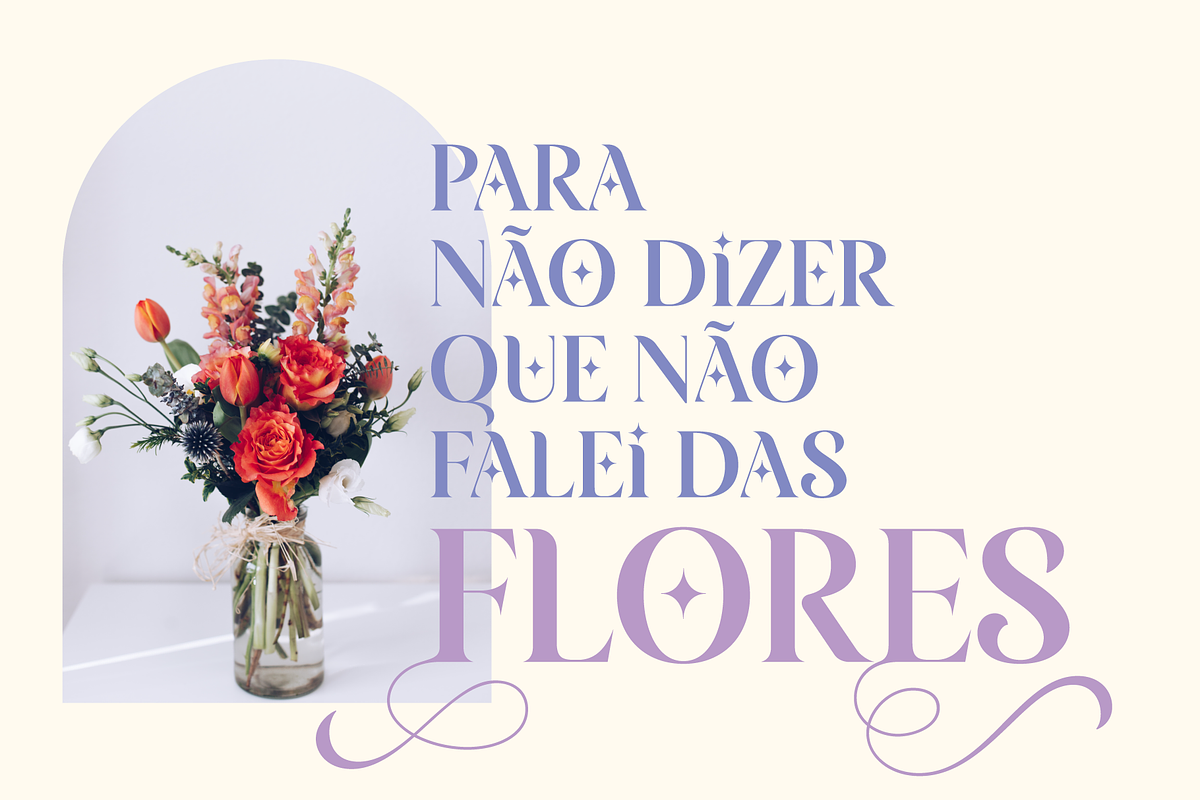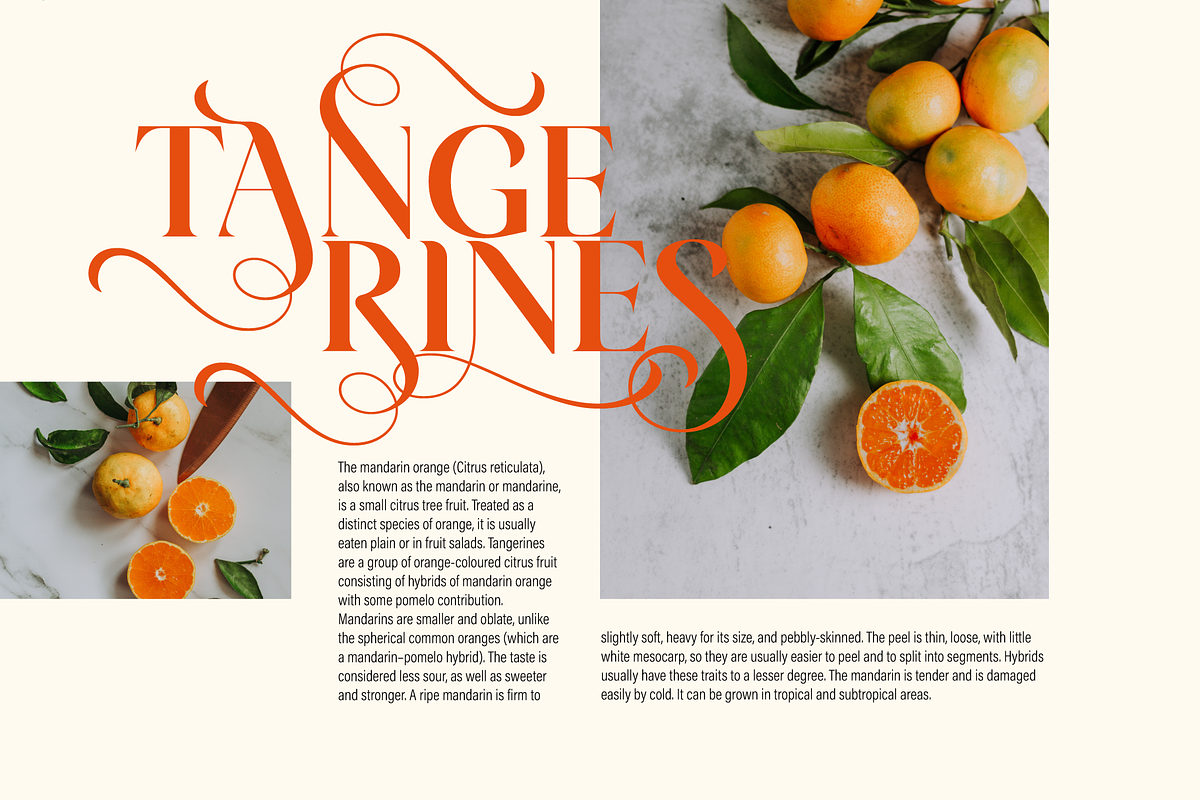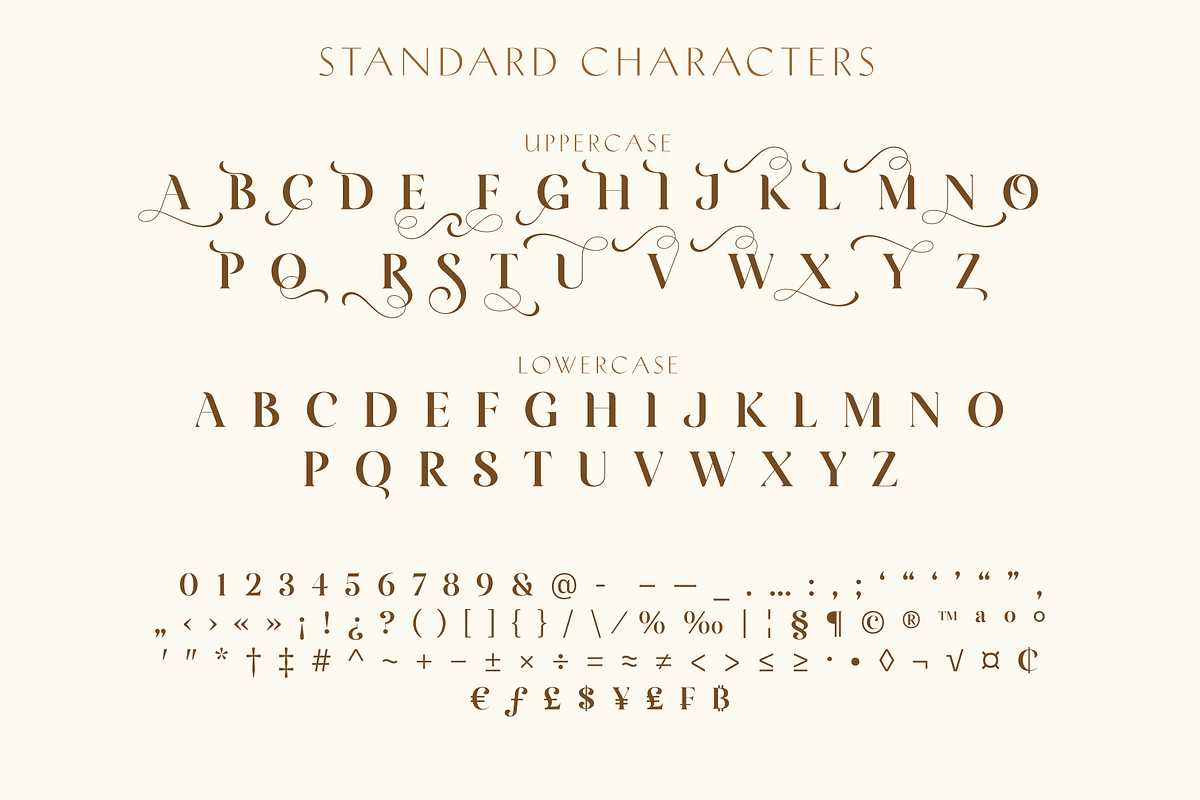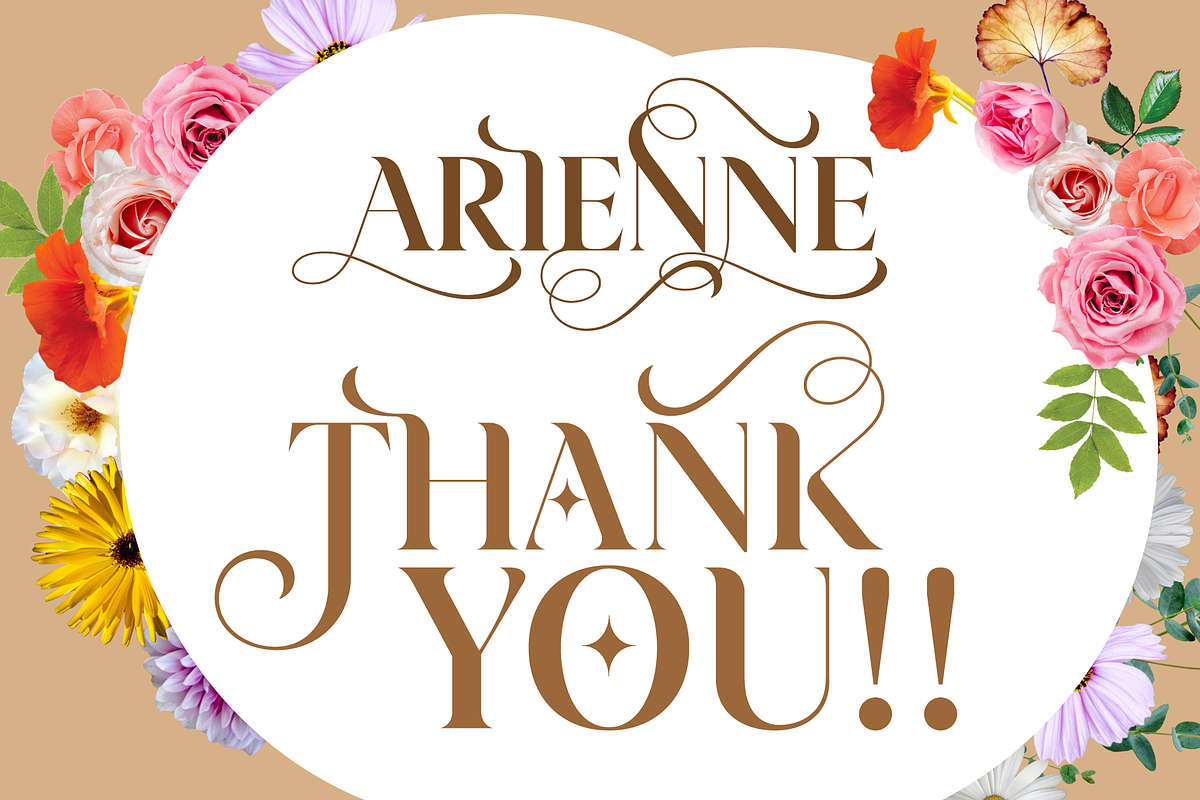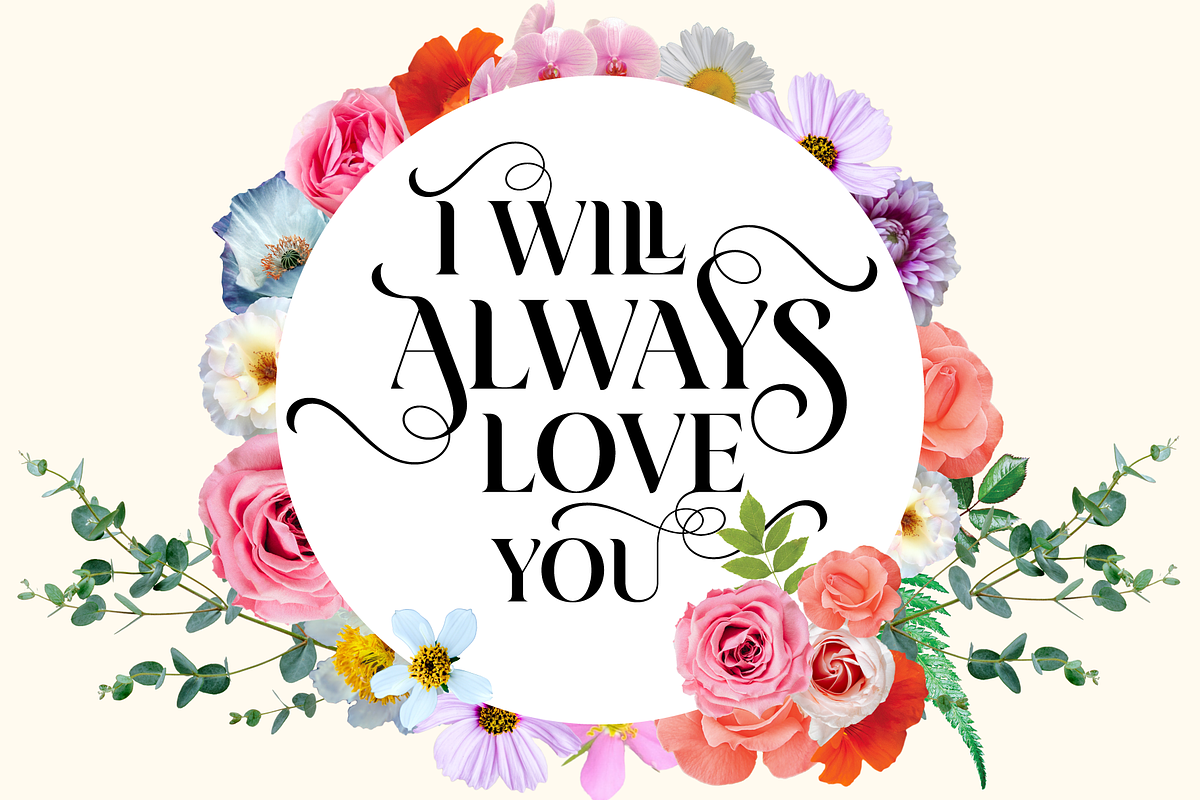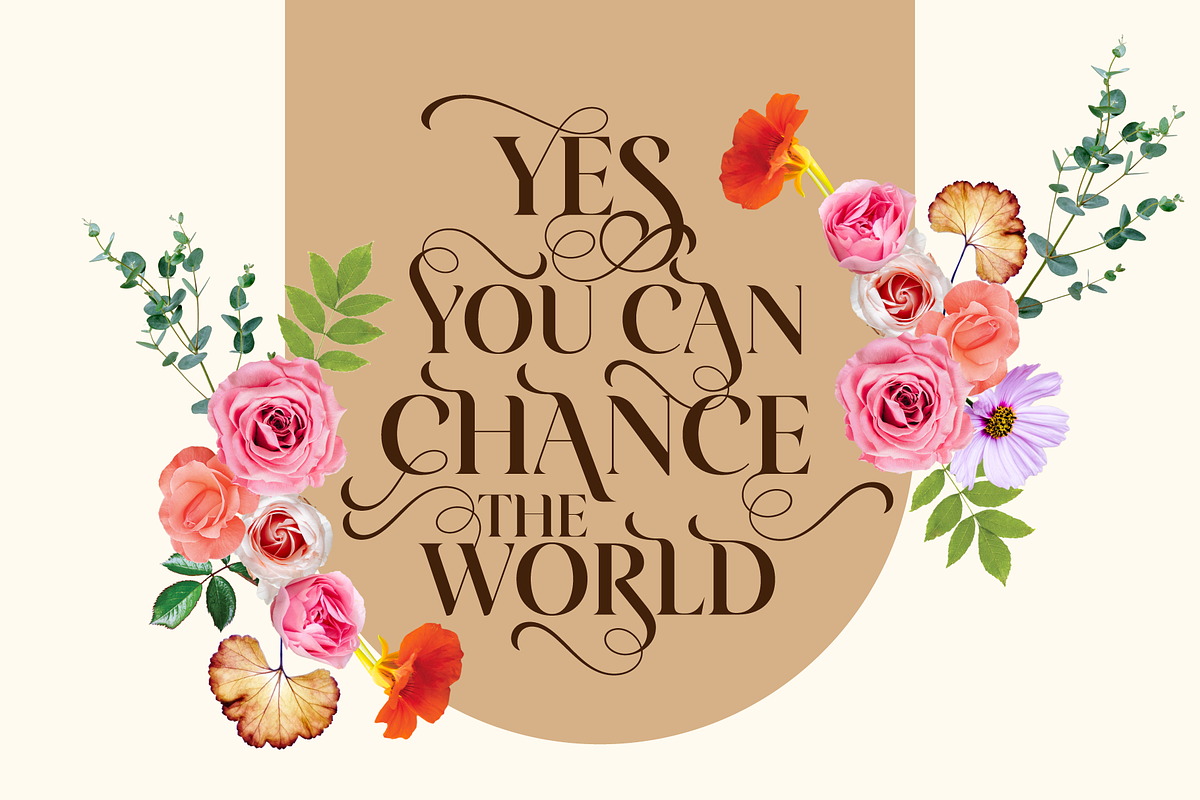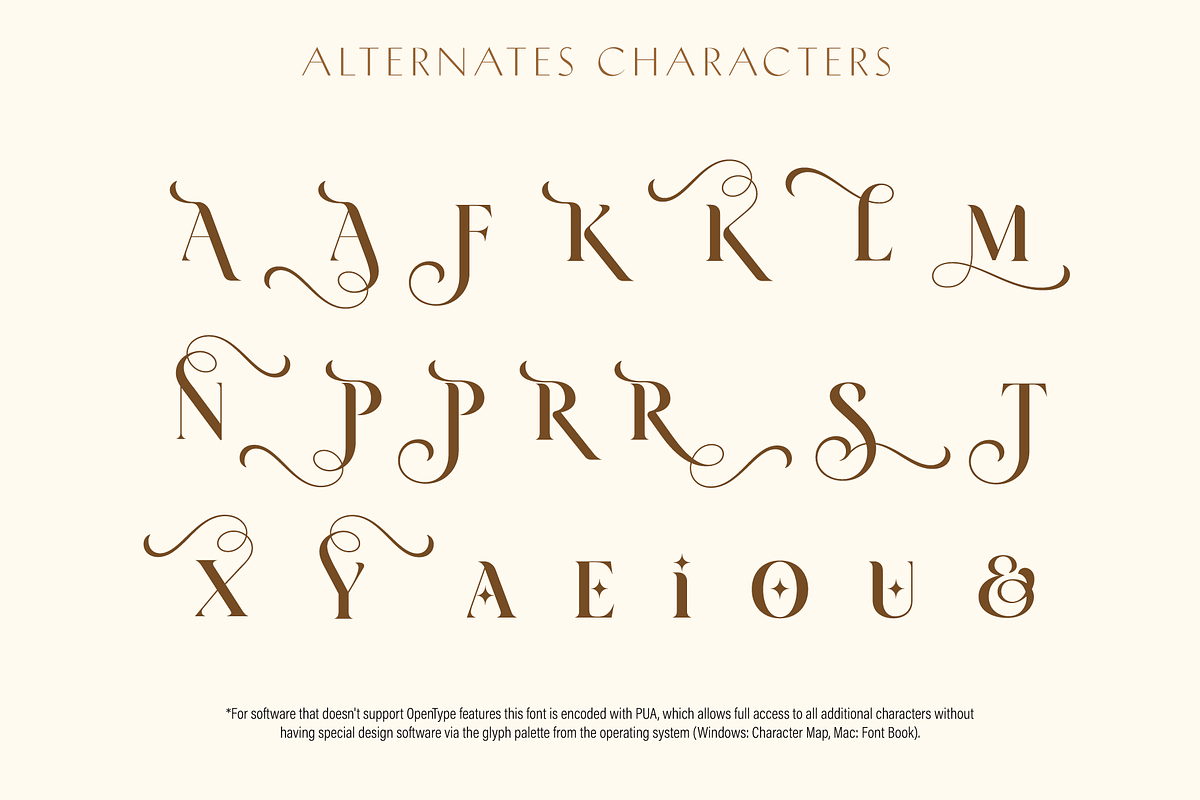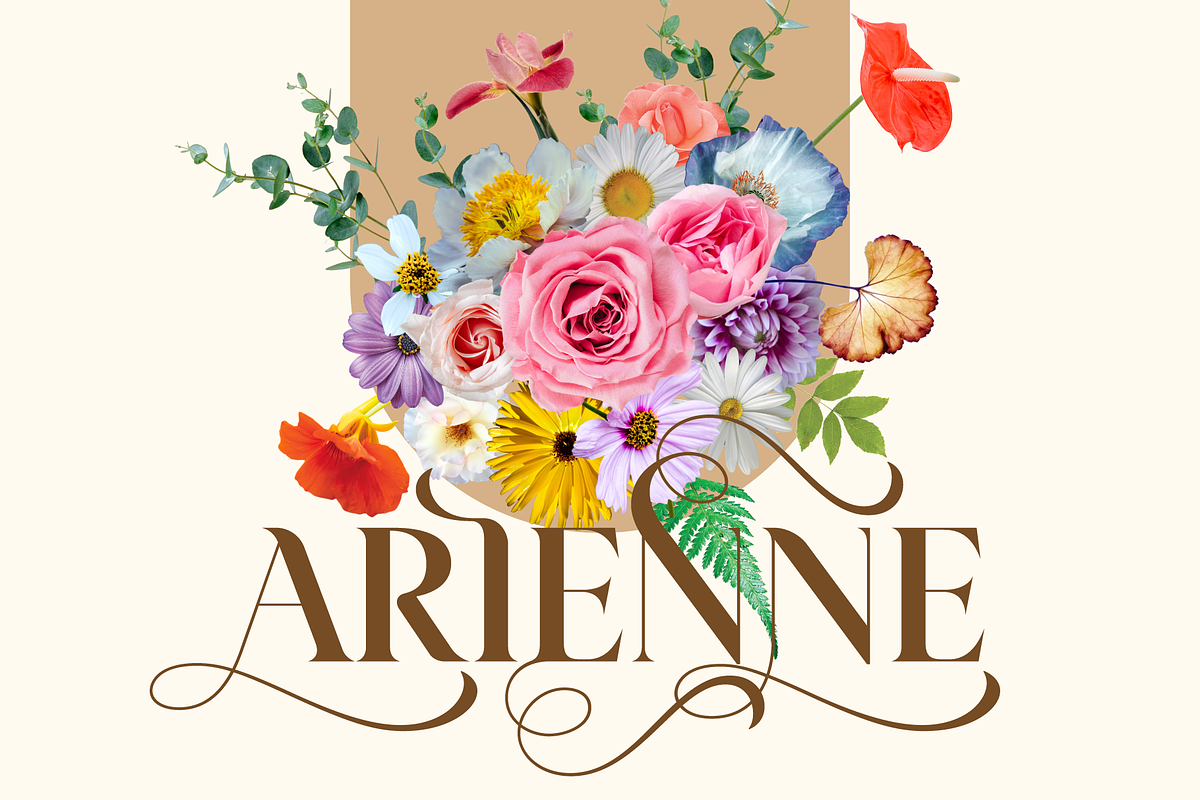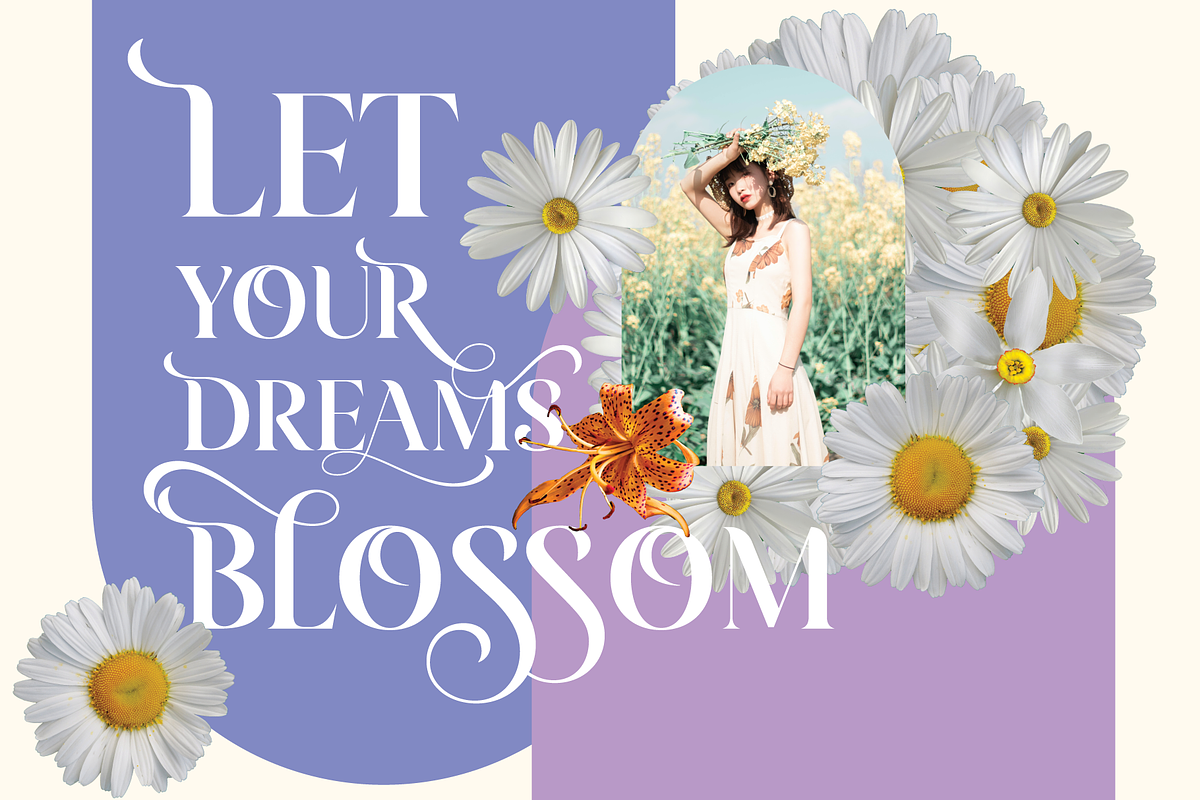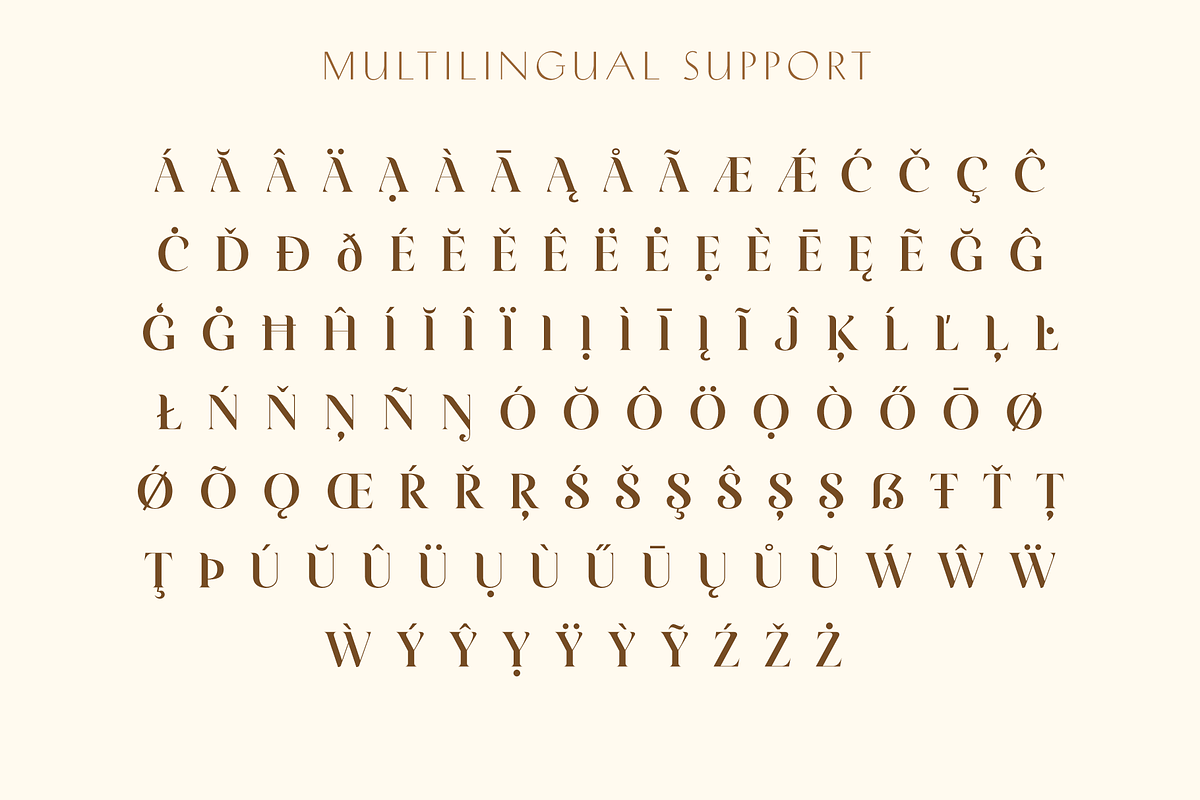
Arienne - Serif Typeface
Arienne is a beautiful serif display typeface, equipped with a variety of alternates letters that to give your project to an unique look. This font was created to help you design logos, branding, headlines, bookcovers, social media posts, magazine cover, poster, and so much more.
- ALL CAPS
- Alternates Characters (Stylistic Set)